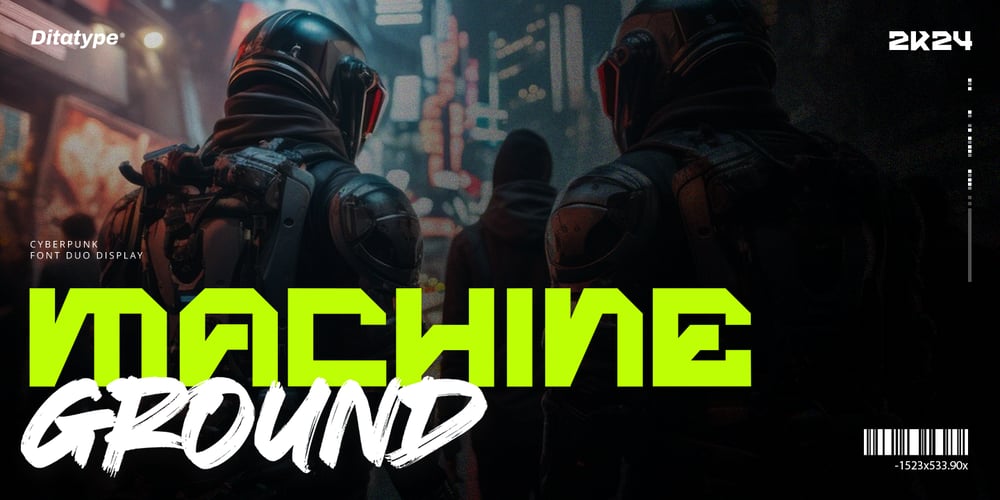
Machine Ground Font Family was designed by Donis Miftahudin and published by Ditatype. Machine Ground contains 3 styles and family package options. Machine Ground presents a cutting-edge duo font that seamlessly fuses the precision of display fonts with the raw energy of brush fonts, all within a futuristic aesthetic. The display font in Machine Ground is made in uppercases, bold letters that embody strength and authority. With clean lines and geometric shapes, this font exudes a sense of precision and sophistication.Complementing the display font is the brush font, which adds a dynamic and organic element to the mix. This font brings a sense of movement and energy to your designs. Together, these two fonts in Machine Ground create a harmonious balance between precision and spontaneity. In addition, enjoy the features here.Features: Ligatures Stylistic Sets Swashes Multilingual Supports PUA Encoded Numerals and Punctuations Machine Ground fits in headlines, logos, posters, flyers, branding materials, greeting cards, print media, editorial layouts, and many more designs. Find out more ways to use this font by taking a look at the font preview.Thanks for purchasing our fonts. Hopefully, you have a great time using our font. Feel free to contact us anytime for further information or when you have trouble with the font. Thanks a lot and happy designing.